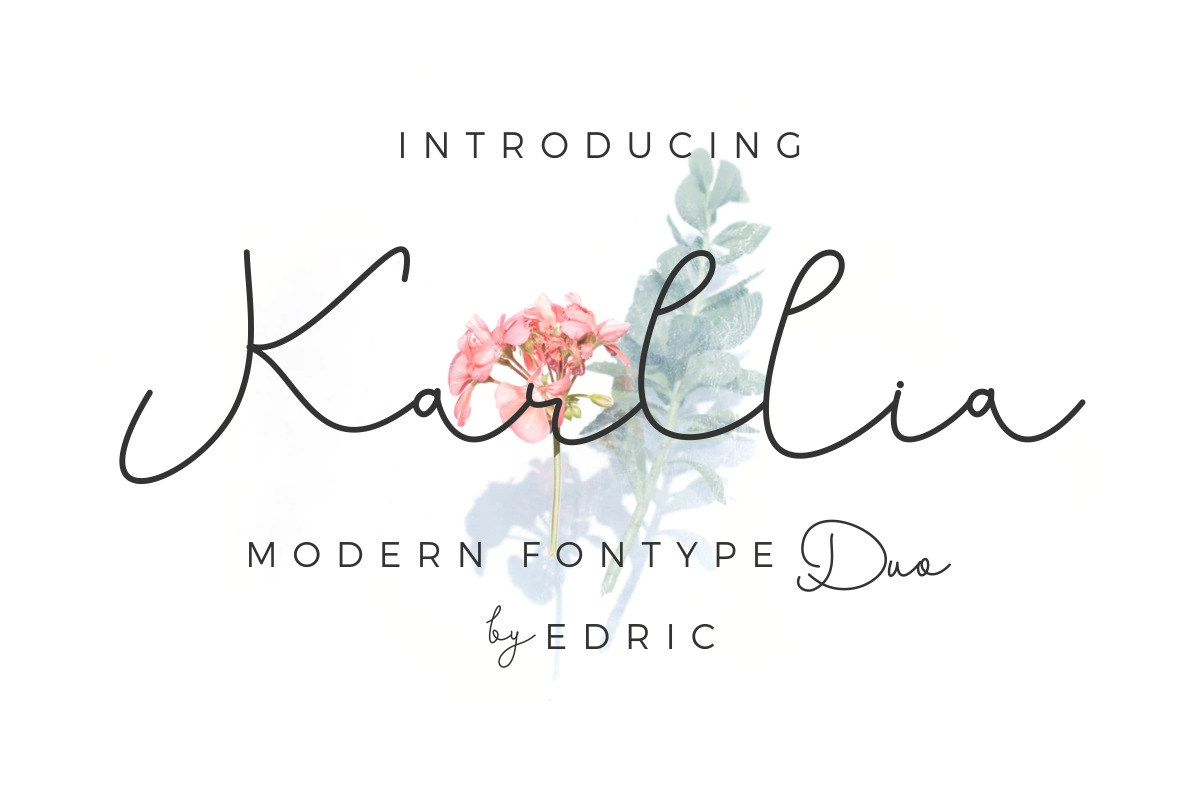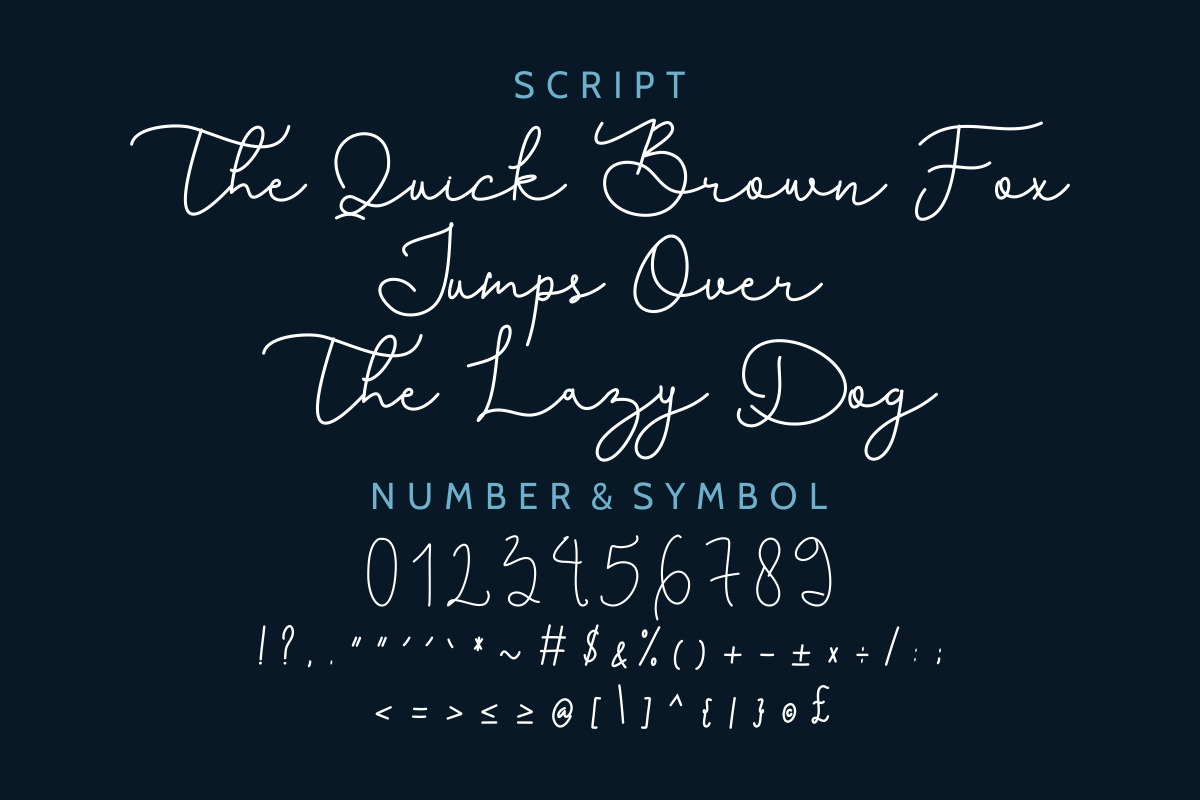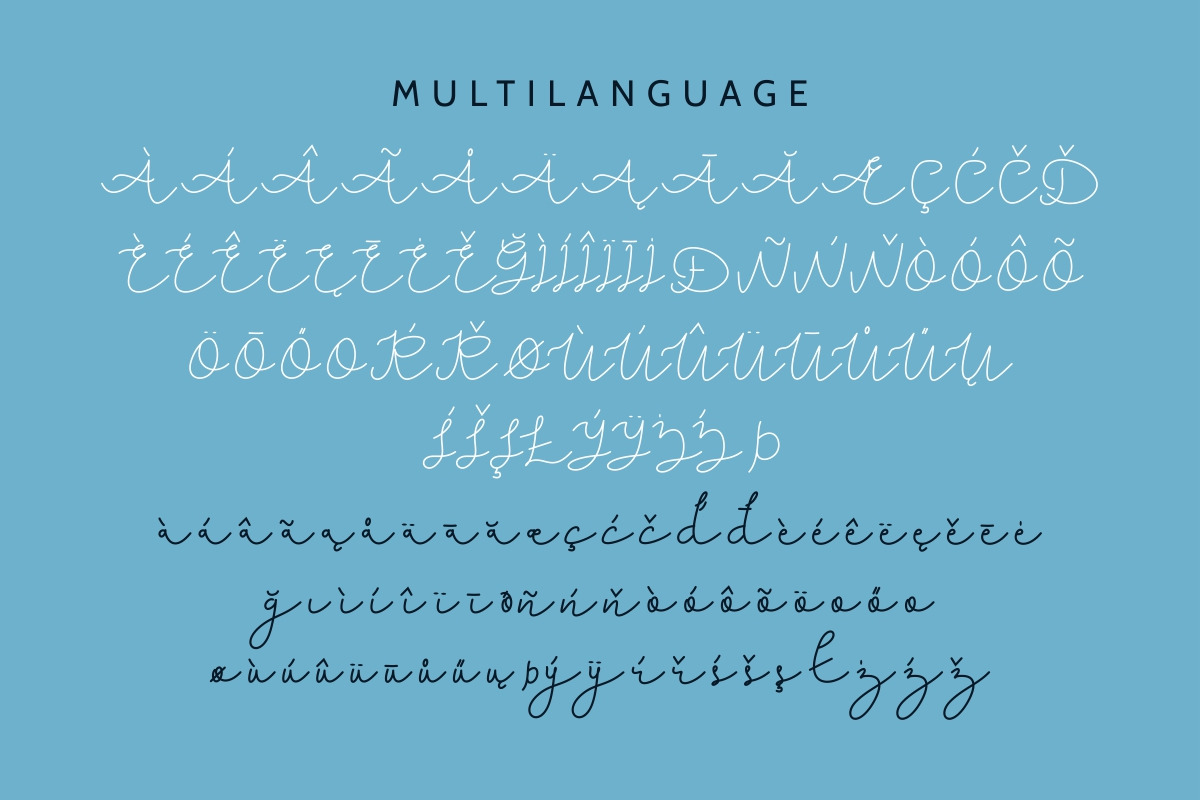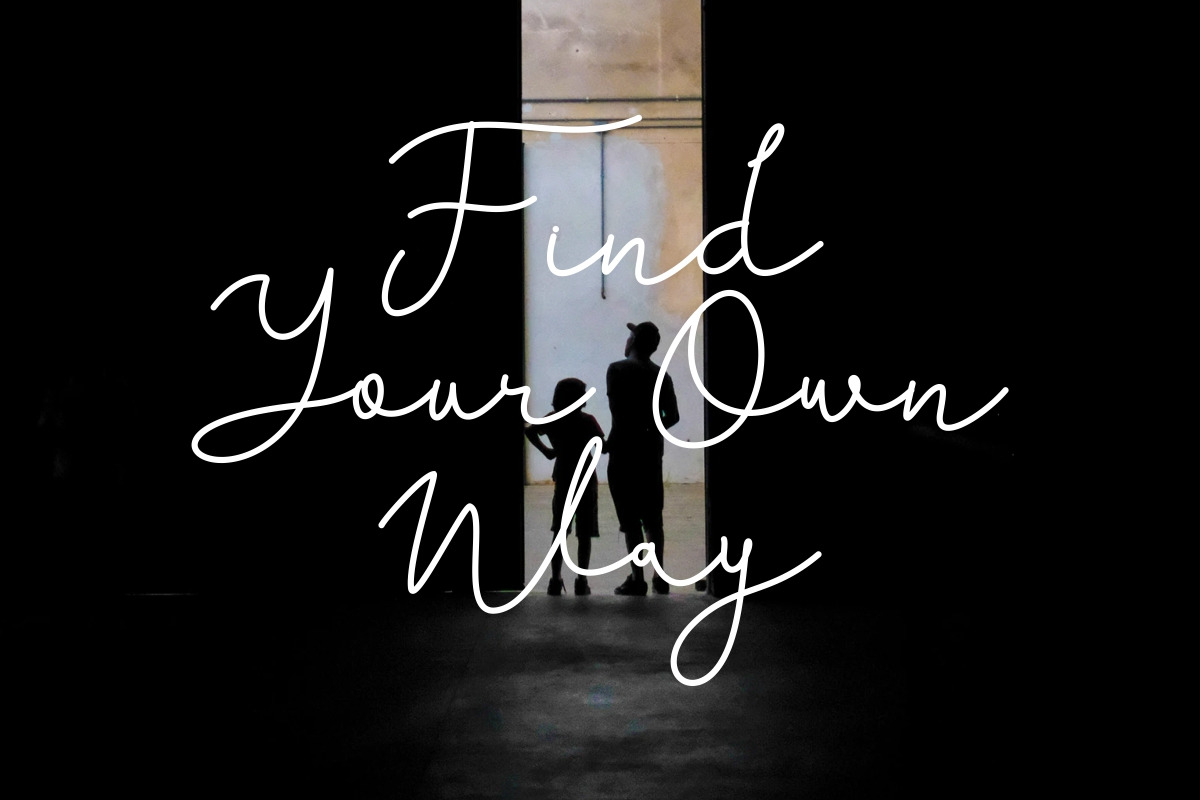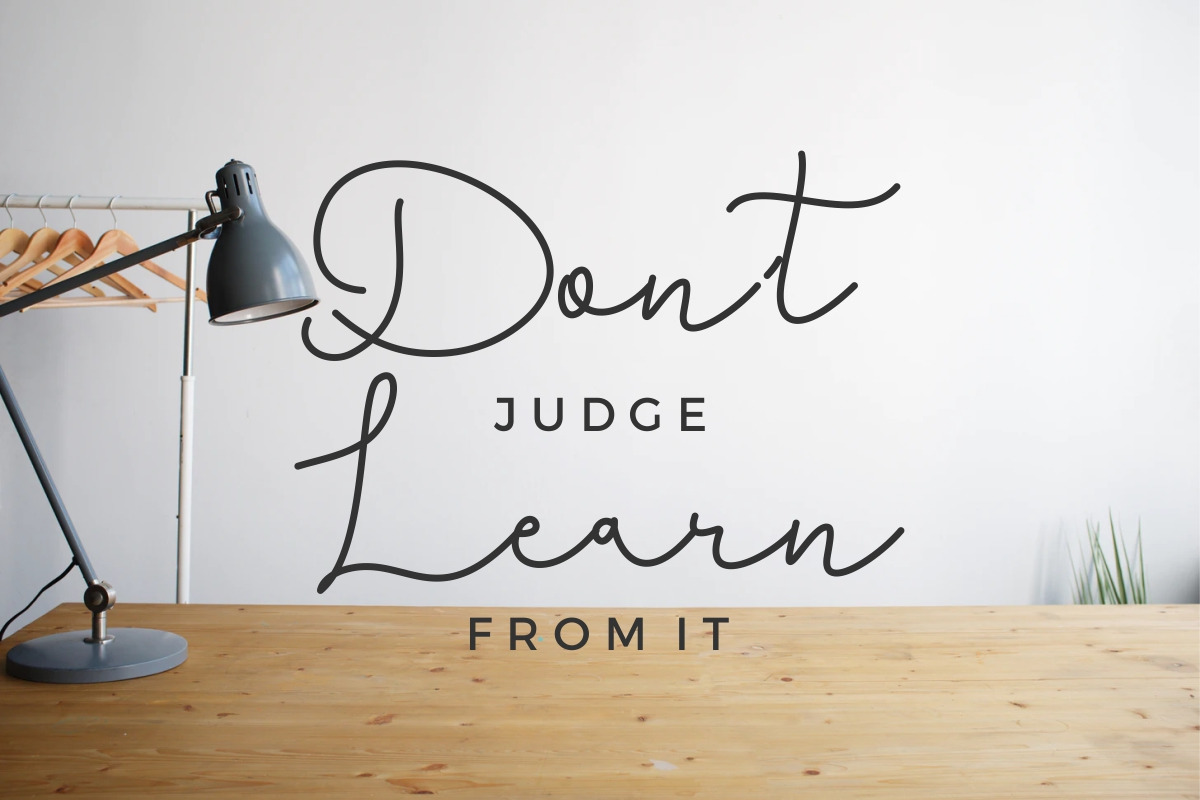
Karllia Monoline Font
Hi Everyone! Introducing our newest font : Karllia ! This is a new Monoline script handwriting font. You will get : - OTF - TTF - Woff
Two Styles : Regular and Bold. Also support many international languages